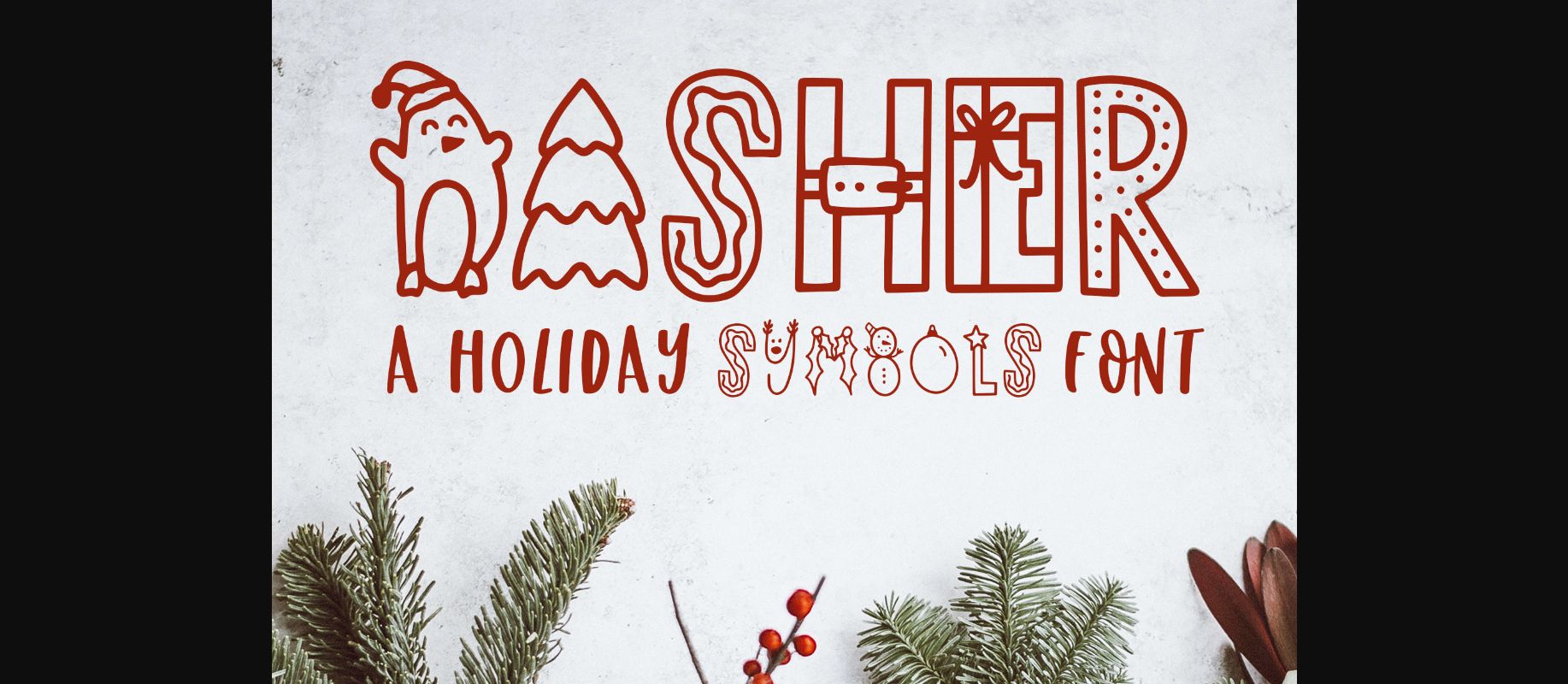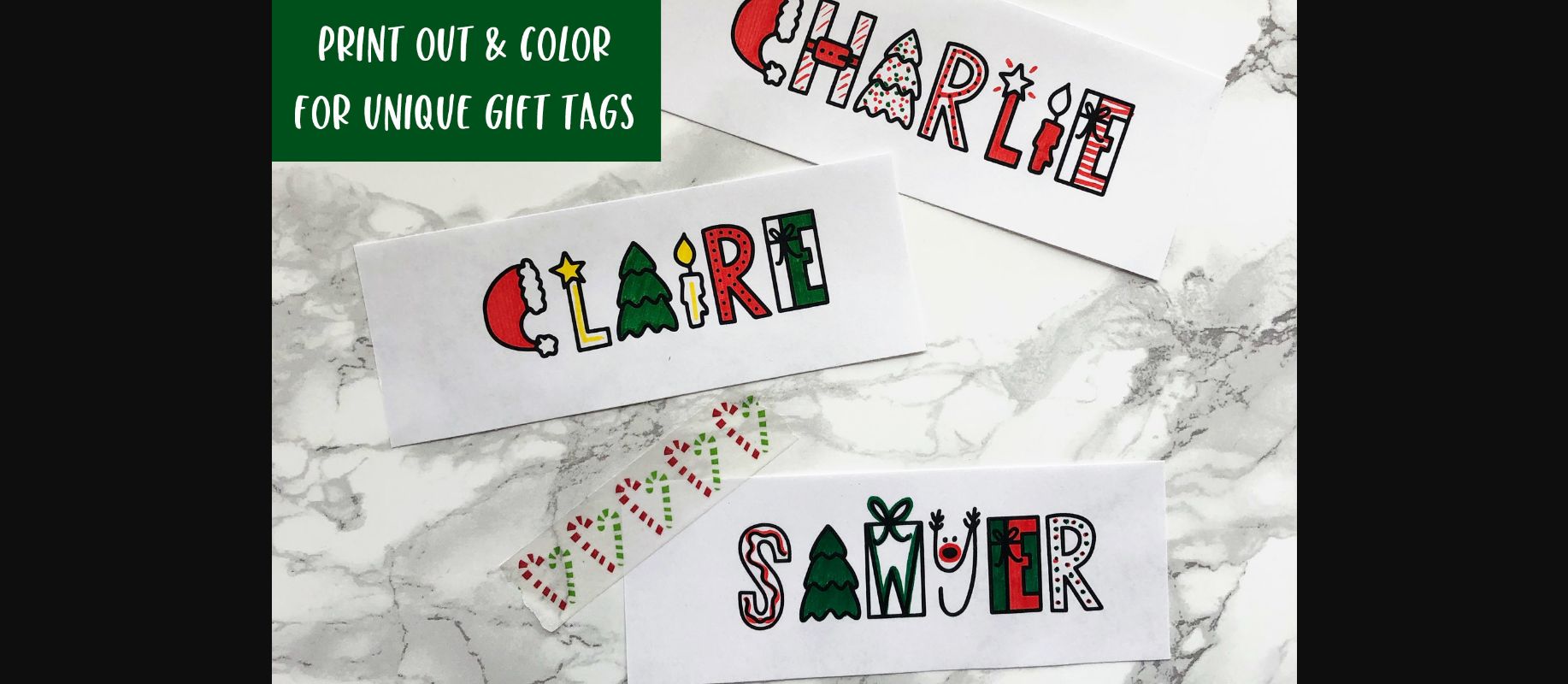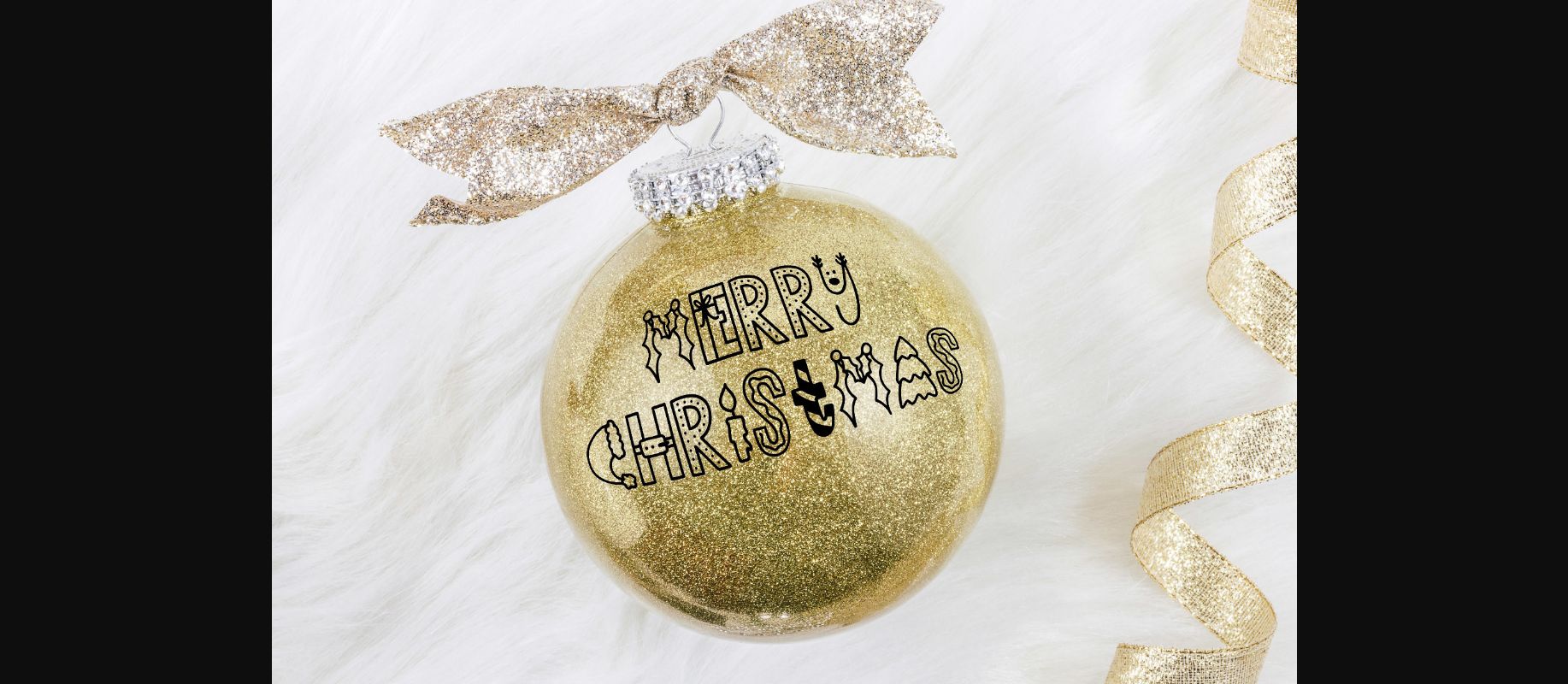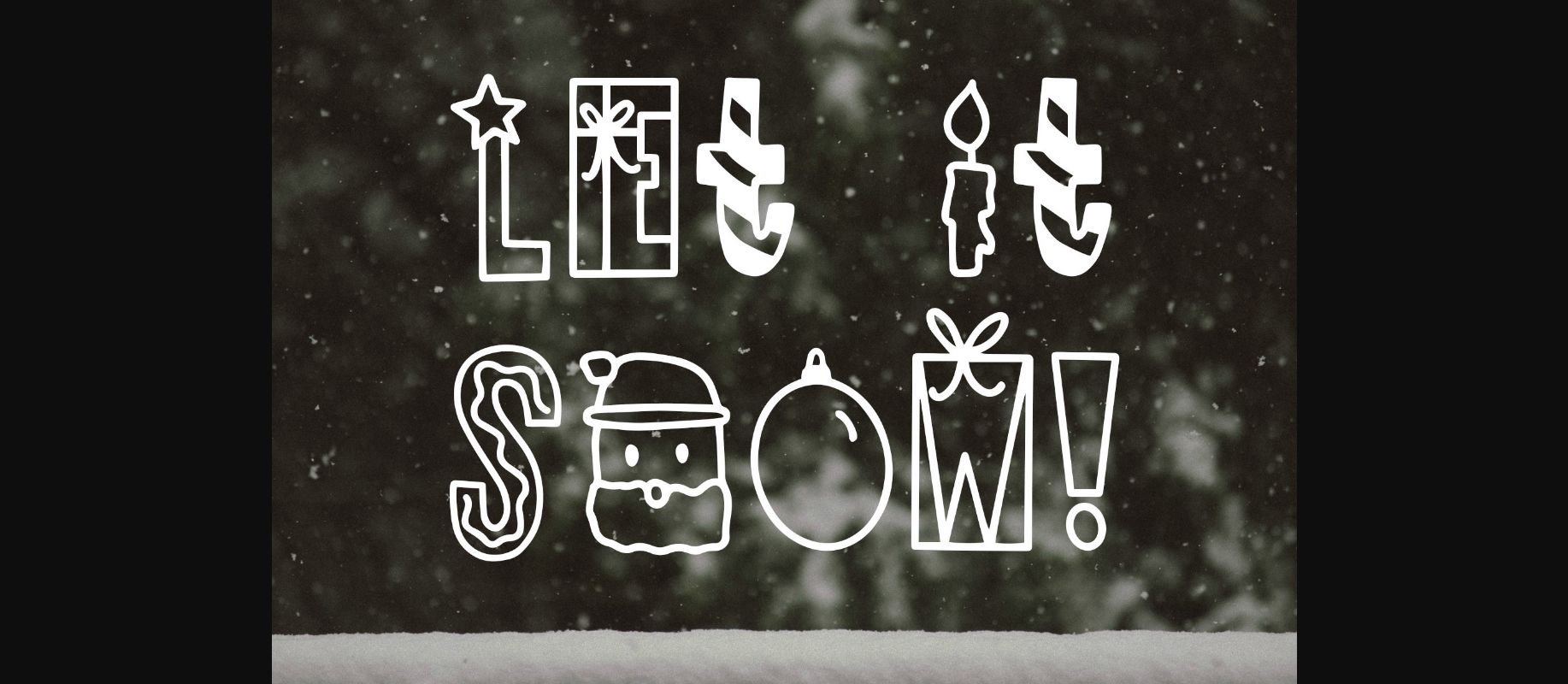
About Dasher Font
Dasher is a hand-drawn holiday symbols font. It includes 26 characters, 0-9 numbers, and select symbols. Use it for gift tags, holiday party invites, t-shirt designs, and more!